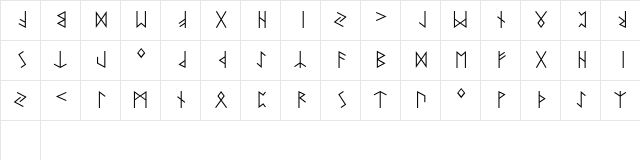
Complete FutharkE Medium glyph index. Displaying only characters natively supported by FutharkE Medium font.
FutharkE is a composed and adaptable typeface that performs quietly and consistently across a wide range of design contexts.